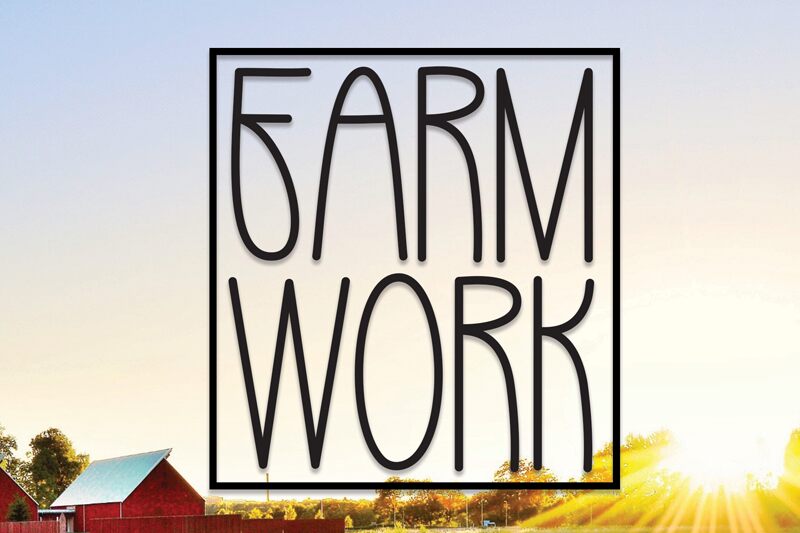
Farm Work
Farm Work, a captivating display font designed by Scratchones, is the perfect choice for projects in need of a touch of nostalgia. With its retro style and light weight, this font exudes an air of vintage charm that is sure to grab attention.
The extra-condensed width adds a unique visual appeal, making Farm Work suitable for various creative endeavors. Whether you're designing posters, logos, or packaging for a farm-to-table restaurant or an artisanal craft brand, this allcaps font will lend your project an authentic retro vibe that stands out from the crowd.